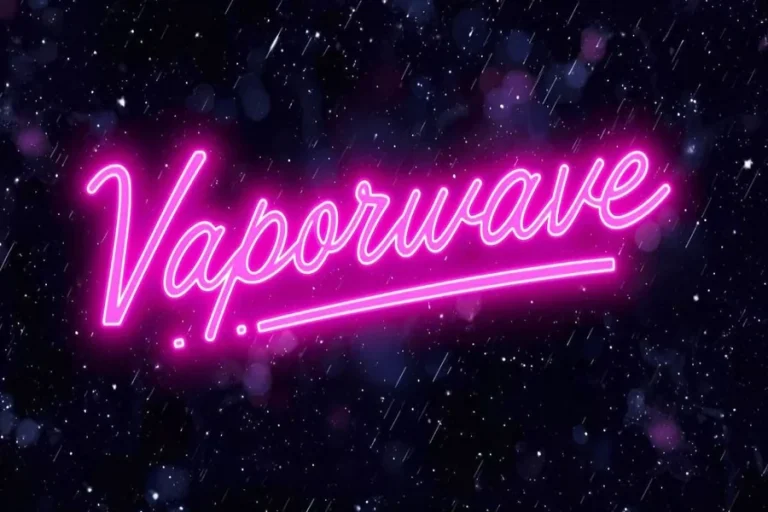
Vaporwave Font Style Guide for Retro Digital Aesthetics
The vaporwave font is not just a type style. It is a mood. It is dreamy and futuristic simultaneously nostalgic. The font design is inspired by the neon lights and light colors of the retro tech old internet culture. It is enjoyed by many creators as it seems artistic and emotional. The vaporwave font usually reminds individuals of obsolete computers VHS tapes and early digital dreams.
This is a font style that is good in music art fashion posters and social media designs. It is also suitable to creative branding projects, which desire a relaxed and surreal sound. The freedom of the vaporwave font is what makes it beautiful. It is not based on rigid rules. It gives the free flow of imagination.
You will know all about vaporwave font in this article. You will dwell into its origin its design sense and the way to use it effectively. You will even find over fifty vaporwave inspired font names. This tutorial will be useful to both beginners and designers.
Origins and meaning of vaporwave font
The vaporwave typeface is an art movement that derived the font. This trend began online in early 2010s. It fused nostalgia and digital culture. Early internet graphics and old computer graphics elevator music contributed to all these.
The Vaporwave font is indicative of that mood. Letters seem to be elongated or luminous. Others appear to have stepped out of an ancient arcade monitor. Others feel soft and dreamy. The goal is not perfection. The goal is feeling.
Most vaporwave fonts are pastel or neon in color. They tend to be slow-minded relaxed and dispassionate. This style is addressed to individuals that are fond of retro aesthetics and digital art culture.
With a vaporwave font, it is possible to give a personality to a design immediately. It produces the mood and the feeling without the necessity of many elements.
Why vaporwave font is popular today
The social media and digital art trends have returned to the popularity of the vaporwave font. Retro fashions combined with creative innovations are popular among people. This font is used to make creators shine in the digital world.
YouTube thumbnails and web headers are written in vaporwave font by the creators of content on the covers of albums and music players in posters. It assists in saying a lot using very little words. It is also effective in aesthetic pages and innovative branding.
Flexibility is another factor that makes it popular. Vaporwave font may either appear bold or gentle. It may be either nostalgic or future. This is why it can be applied to a great variety of creative directions.
It is particularly popular with younger listeners. It is related to online communities and digital culture gaming. Vaporwave font is also artistic as opposed to being corporate and this is a plus.
Where to use vaporwave font effectively
Vaporwave font is most effective when the font suits the design. It suits the creative projects as compared to formal ones. It can be applied in album covers digital posters fashion branding, and social media visuals.
It is also effective with YouTube thumbnails, and music related content. Vaporwave font improves titles with personality and feelings. It is able to make content unique and expressive.
It is also used with landing pages that are dedicated to art or lifestyle by web designers. With soft colors and gradients the effect is more powerful when using them together.
Never use vaporwave font to write long texts. It is most effective in headings logos and short phrases. This ensures the readability is high and style is good.
Popular vaporwave font name ideas
Below is a list of more than fifty vaporwave inspired font names. These names reflect retro digital emotion and creative energy.
Neon Drift
Pixel Mirage
Retro Pulse
Dreamwave
Cyber Sunset
Soft Static
Pastel Echo
Midnight Arcade
Future Fade
Crystal Wave
Digital Blossom
Neon Memory
Cosmic Tape
Soft Glitch
Tokyo Fade
Pixel Dreamer
Synth Glow
Ocean Static
Electric Bloom
Horizon Vibe
Retro Vision
Moonlight Grid
Vapor Glow
Cloud Matrix
Echo Neon
Pastel Signal
Dream Grid
Neon Mist
Digital Mirage
Soft Neon
Synth Waveform
Lunar Pixel
Retro Aura
Future Mist
Glow Memory
Static Dream
Cyber Haze
Pixel Romance
Neon Driftwood
Dream Static
Waveform Light
Soft Horizon
Pastel Pulse
Echo Frame
Digital Dusk
Vapor Touch
Neon Memory Lane
Synth Dream
Cloud Neon
Electric Calm
Pixel Haze
Retro Cloud
These names can inspire your own designs or help you choose a style that fits your project.
How to choose the right vaporwave font
The correct vaporwave font will be determined by your intention. First consider which emotion you want to share. Light and gentle fonts are suitable when used to create peaceful images. Bold and energetic designs are well matched with sharp neon fonts.
Consider the location of the font. In logos select an easy to read style. In case of posters or art work you can experiment with more abstract forms.
Color also matters. Pink purple blue and teal tones can also be used in conjunction with vaporwave fonts. The effect is augmented by soft gradients.
Never leave your font the same color. Ensure that it is readable without being artistic.
Using vaporwave font in branding
Vaporwave font branding can make your identity original. It conveys the message of freedom and innovativeness. This style is used by a lot of digital creators and music artists in order to be different.
Consistency is important. Create recognition by using the same vaporwave font on visuals. It should be used together with basic layouts to keep it uncluttered.
The fonts that suit best are vaporwave font because they complement the message instead of overwhelming it. Balance style and be as clear as possible.
Final Thought
Vaporwave font is not a design trend. It is a form of expression. It links nostalgia of emotion and creativity in an unusual manner. You can use this font style to add depth and mood to either the art music covers or the digital content that you are designing.
Knowing its origins and putting it into a considered context, you will be able to come up with images that will be both contemporary and classic. Vaporwave font encourages fantasy and individual way of dressing. It enables artists to experiment with digital nostalgia and transform even a simple text to art.
FAQs
What is a vaporwave font?
A vaporwave font is a type style inspired by retro digital culture neon colors and nostalgic visuals from early technology eras.
Where can I use vaporwave font?
You can use it for posters music covers social media graphics branding and digital art projects.
Is vaporwave font good for logos?
Yes it works well for creative logos especially for music art and lifestyle brands.
Can vaporwave font be used for websites?
Yes but it works best for headers and titles rather than long text.
What makes vaporwave font unique?
Its blend of retro aesthetics soft colors and emotional design makes it stand out from modern fonts.
Is vaporwave font still popular?
Yes it remains popular in digital art music culture and creative branding spaces.
How do I choose the right vaporwave font?
Choose one that matches your mood message and design purpose while staying readable.